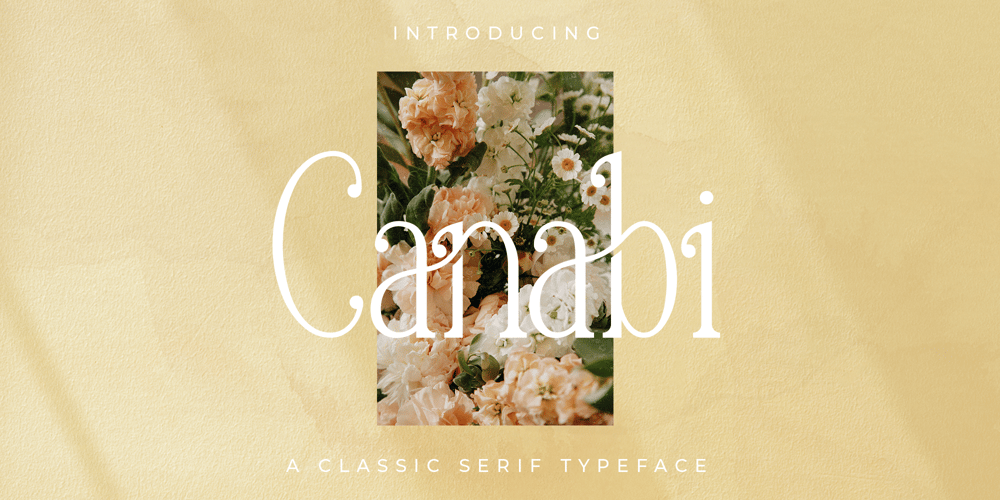
Canabi Font Family was designed by Andreas Kosikin and published by Avchi. Canabi contains 1 styles and family package options. CANABI – A classic serif font designed for logo, headline, and suitable for classic design. Combination between serif and condensed style! This is our first product and we will give you the best experience! Multilinguals Numbers & Punctuactions Ligatures Thank you for supporting us!